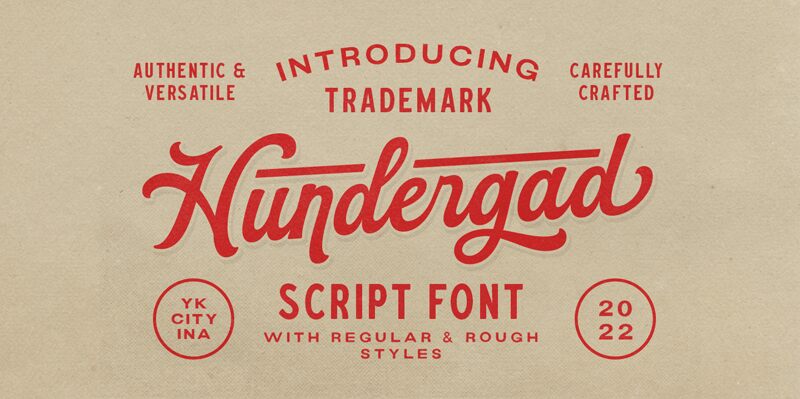
Hundergad, a vintage calligraphy font designed by Letterhend Studio, exudes an air of timeless elegance. With its fluid strokes and intricate details, this font is perfect for creating unique and eye-catching designs.
Its versatility makes it suitable for a wide range of projects, from wedding invitations to logo designs. The vintage charm of Hundergad adds a touch of nostalgia to any project, making it ideal for branding materials or packaging designs.
Whether you're aiming for a classic or contemporary look, Hundergad will effortlessly elevate your creations to new heights.